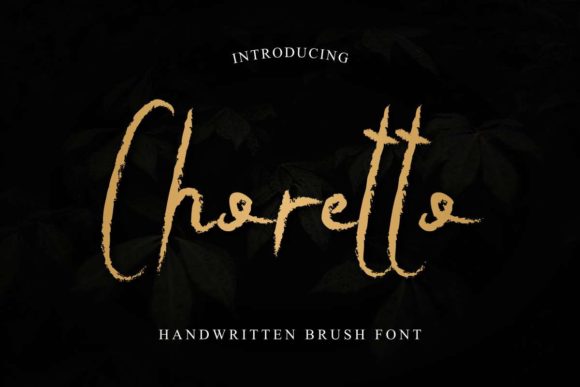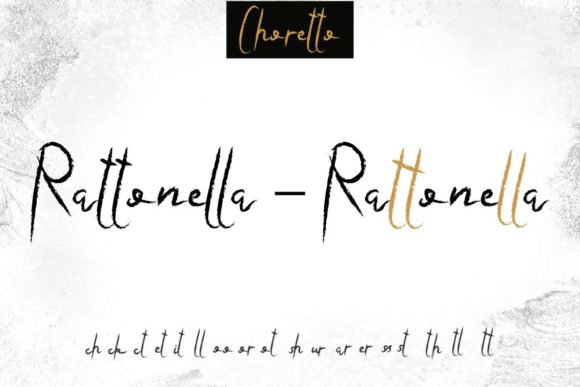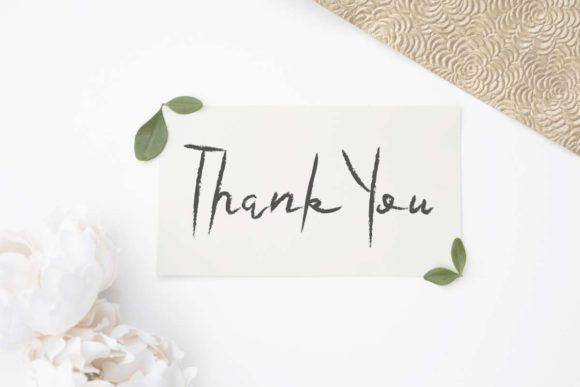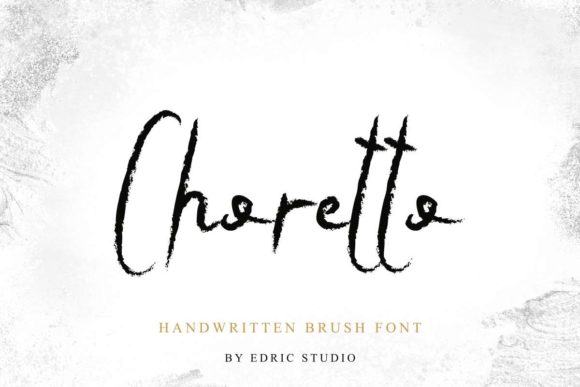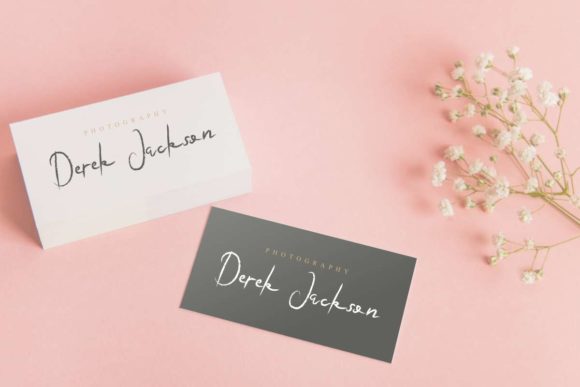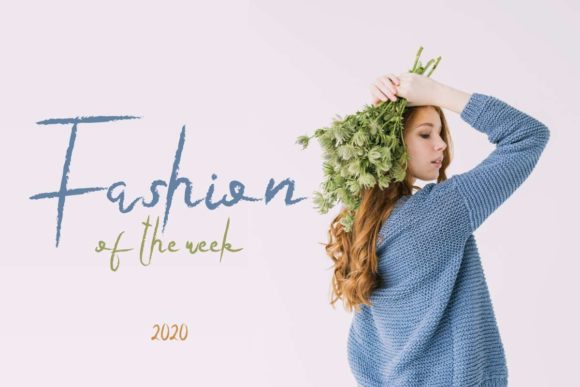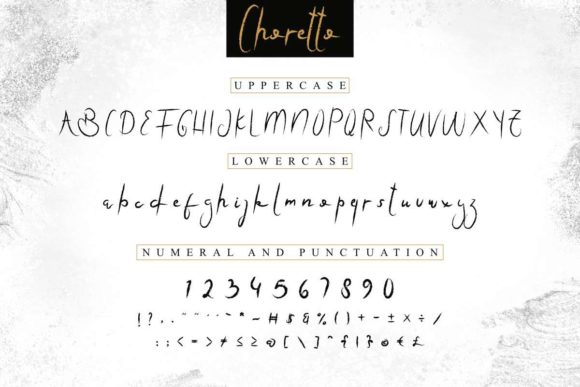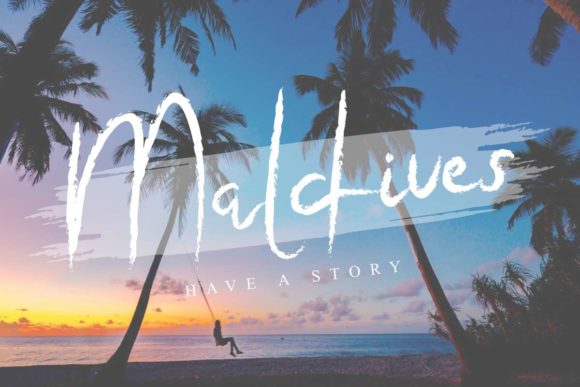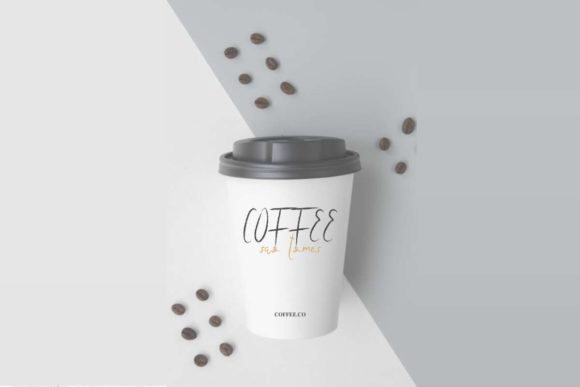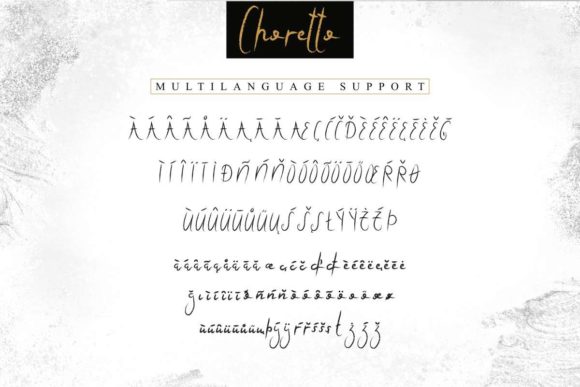
Choretto Font
About Choretto Font
Choretto embodies fun, quirkiness and authenticity. This handwritten font is the perfect fit for all of your logos, branding, social media, and crafty DIY projects.